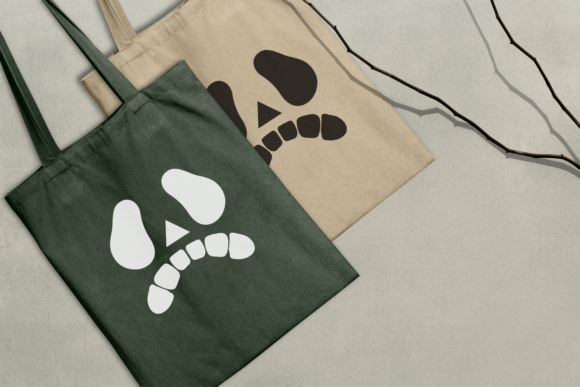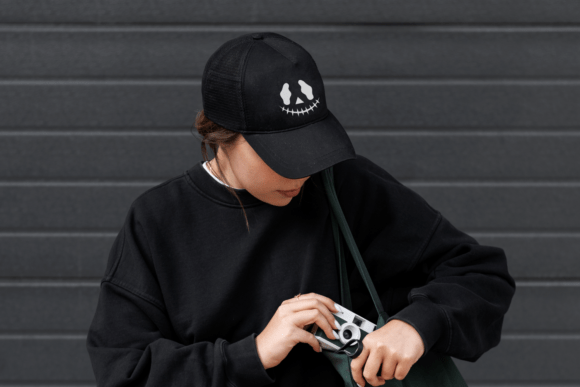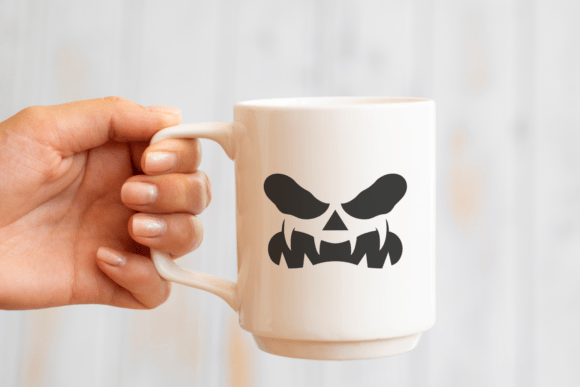
Introduction to Halloween Scary Face Font
This dingbats font, Halloween Scary Face, instantly sets the mood for spooky and playful designs.
Featuring bold, jagged strokes and exaggerated facial expressions, this font transforms simple letters and symbols into eerie pumpkin-carving-inspired graphics Its sharp angles, unique character variations, and dramatic contrast make it perfect for creating Halloween party invitations, themed posters, digital stickers, and packaging with a chilling yet fun vibe.
Key Features of Halloween Scary Face Font